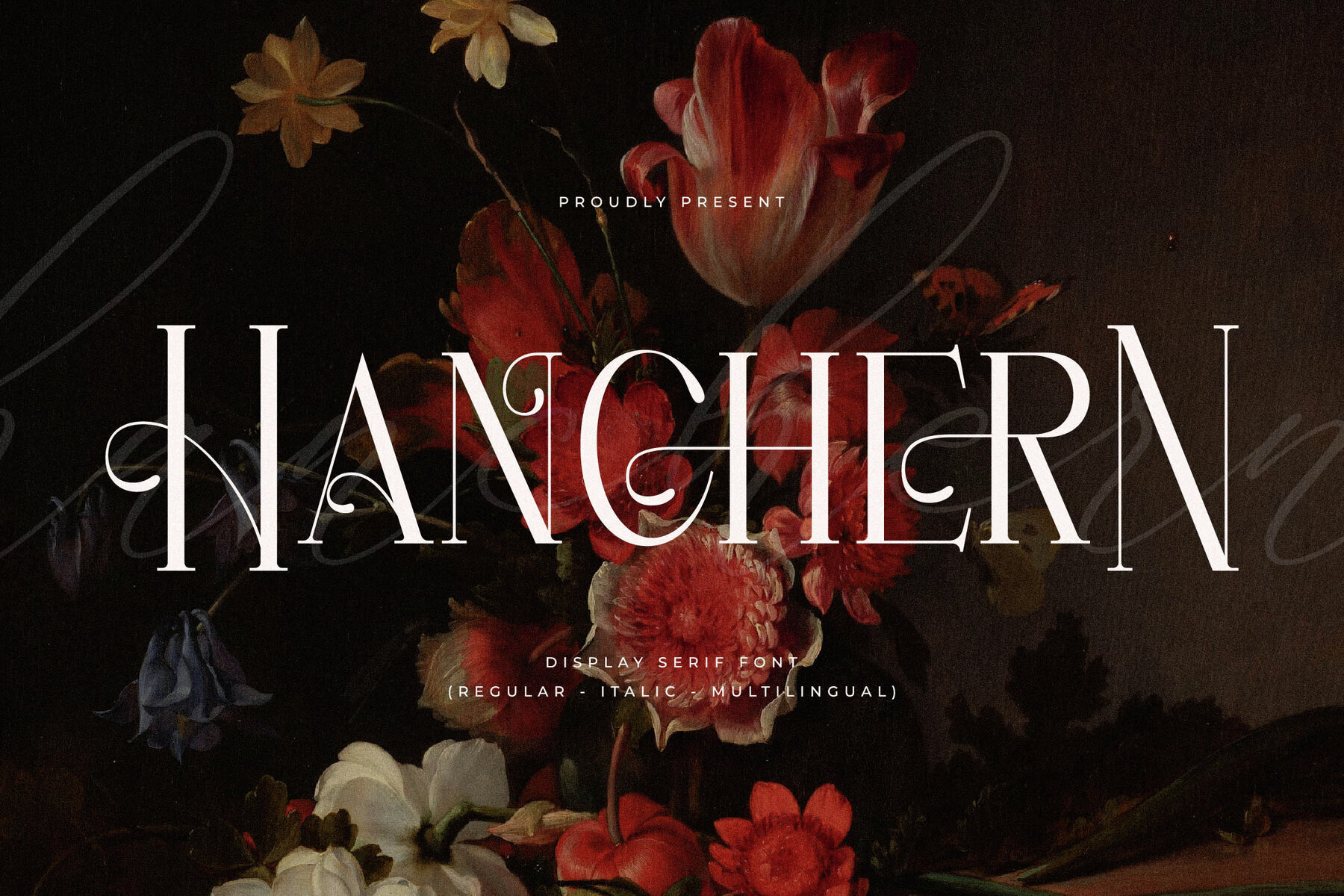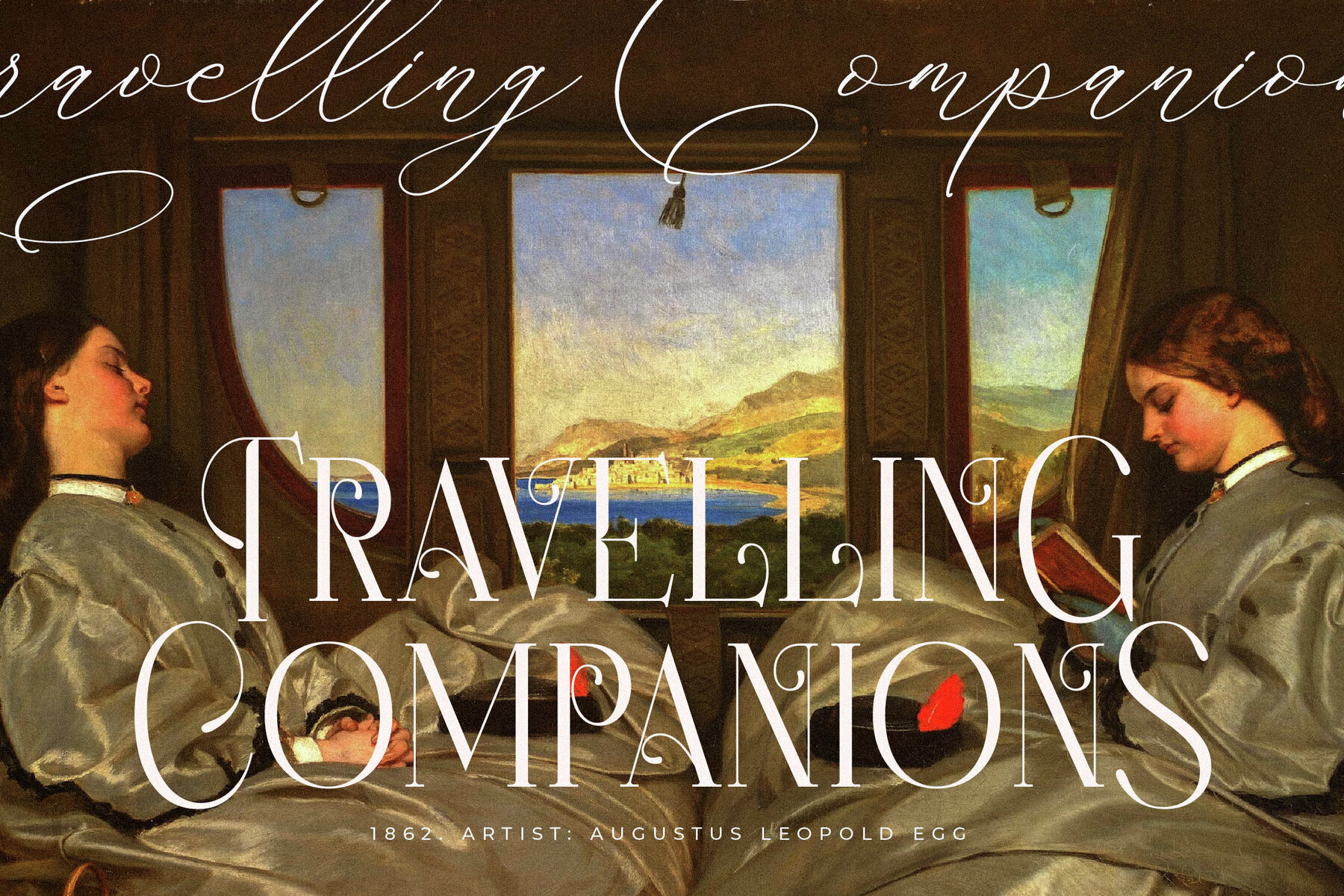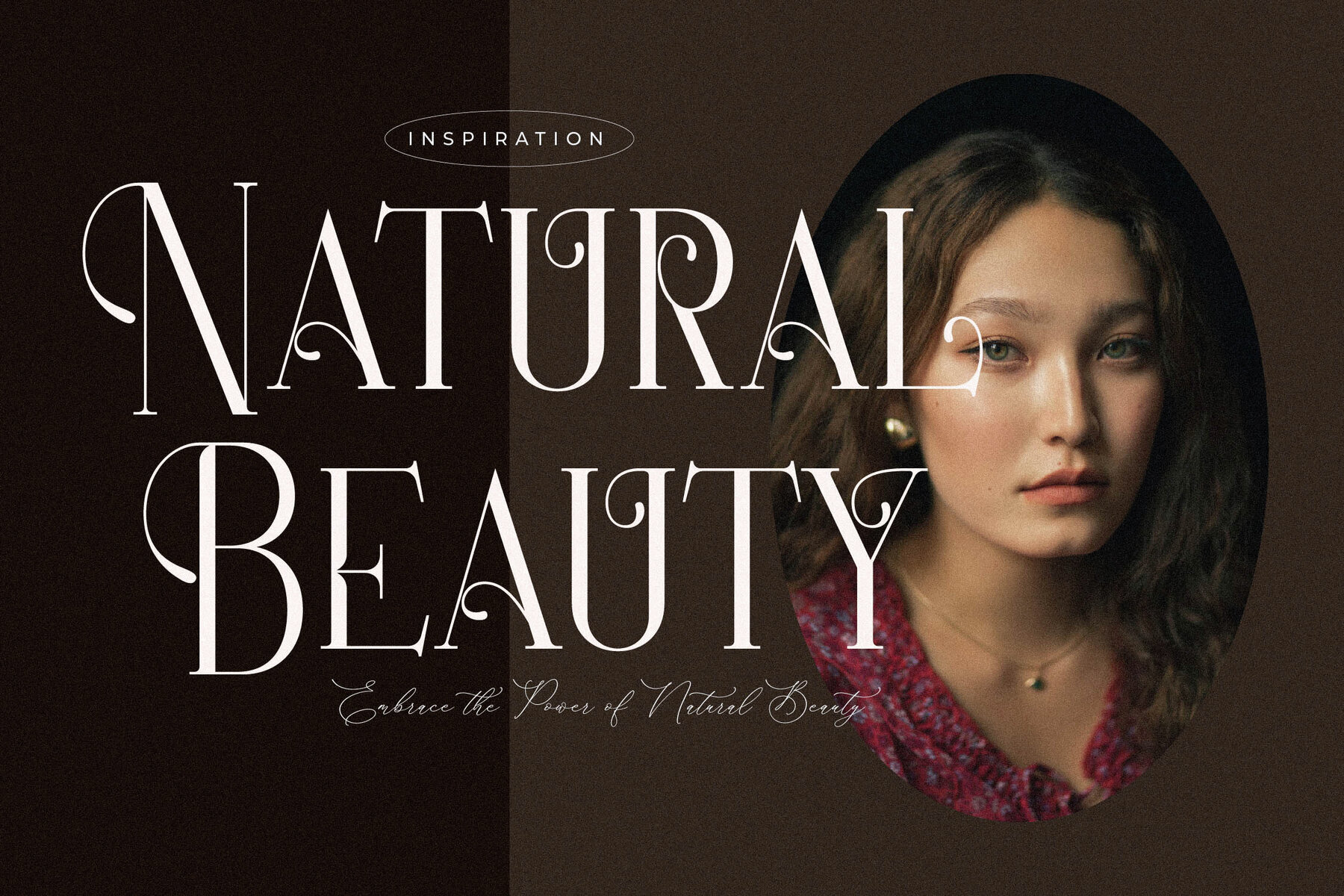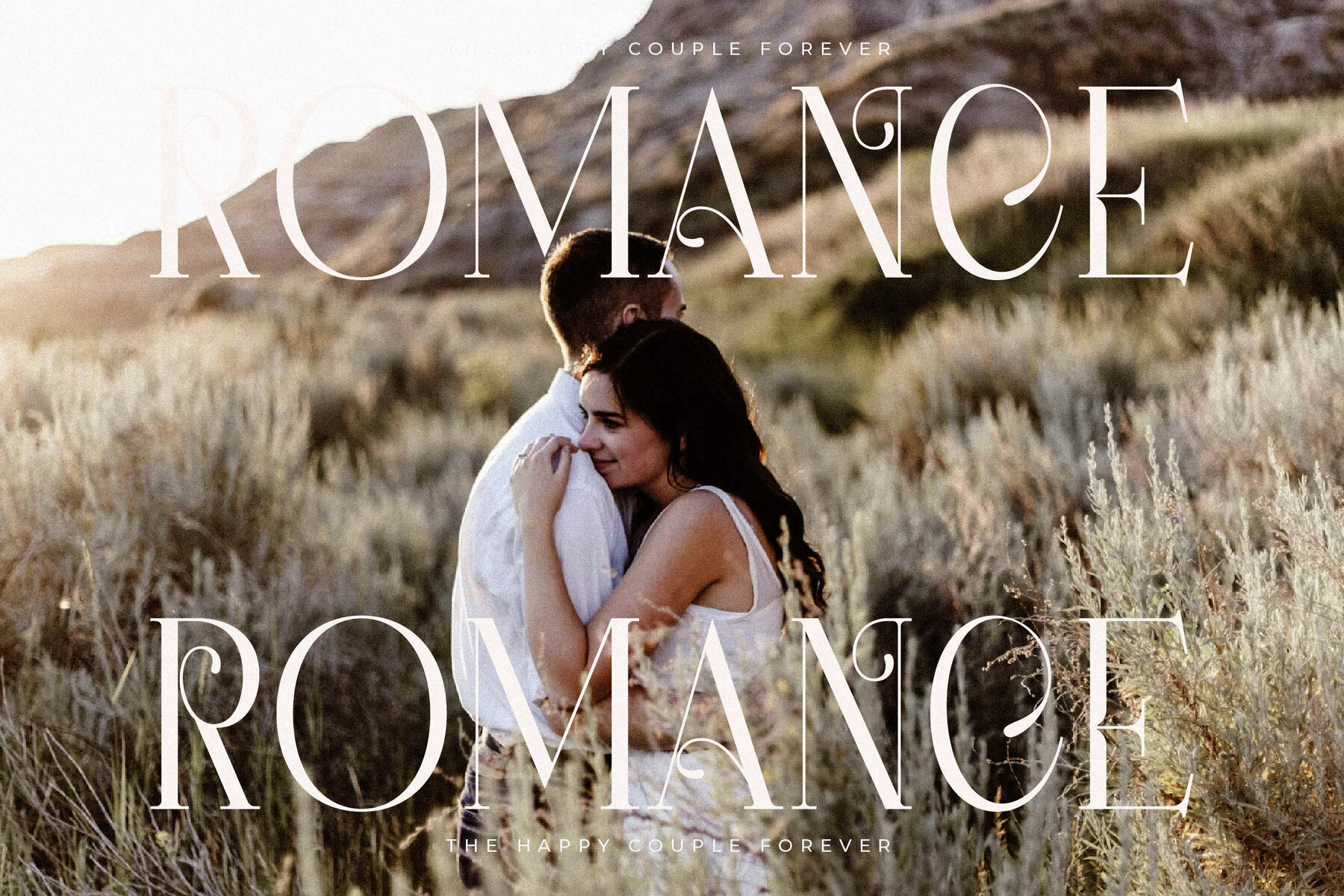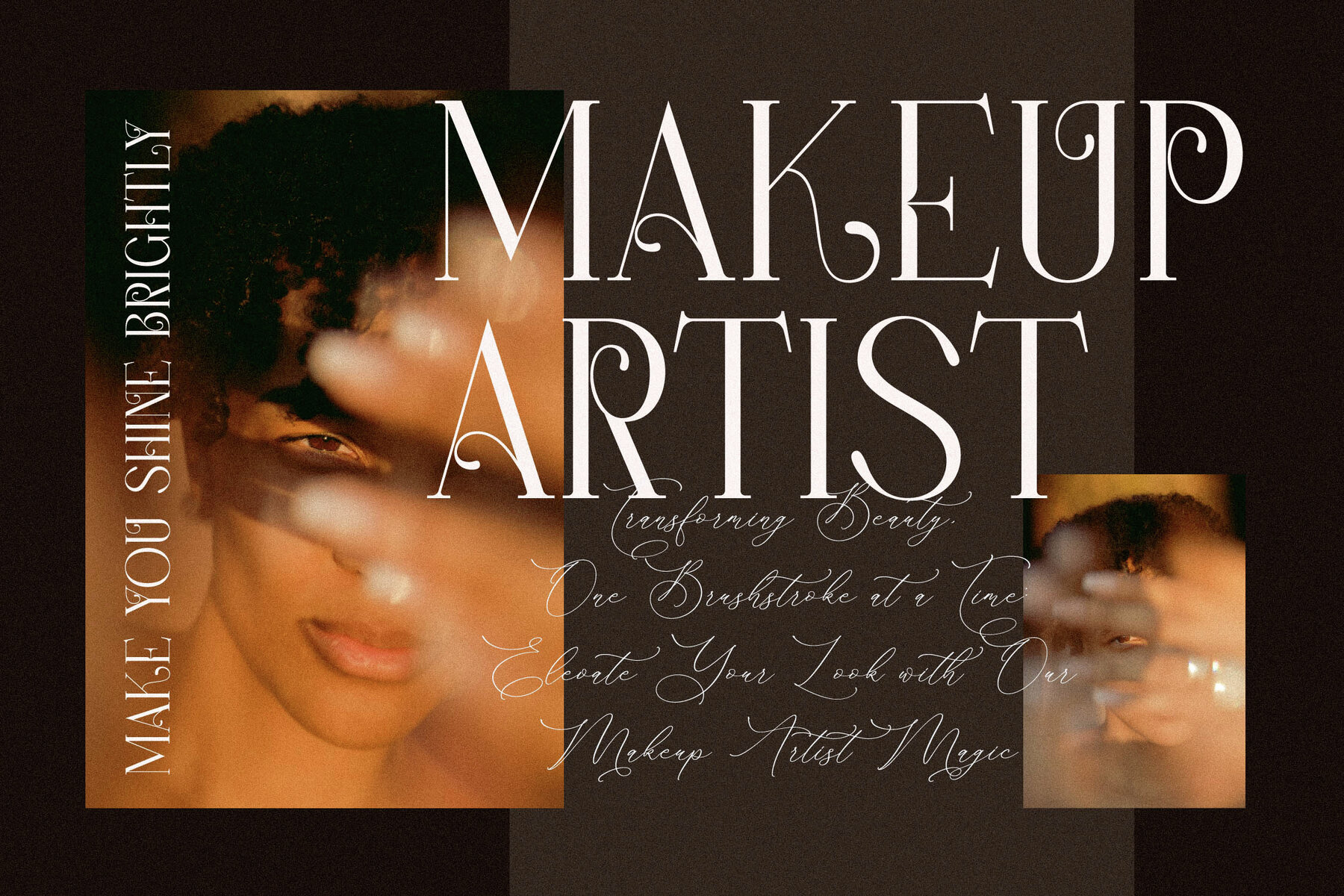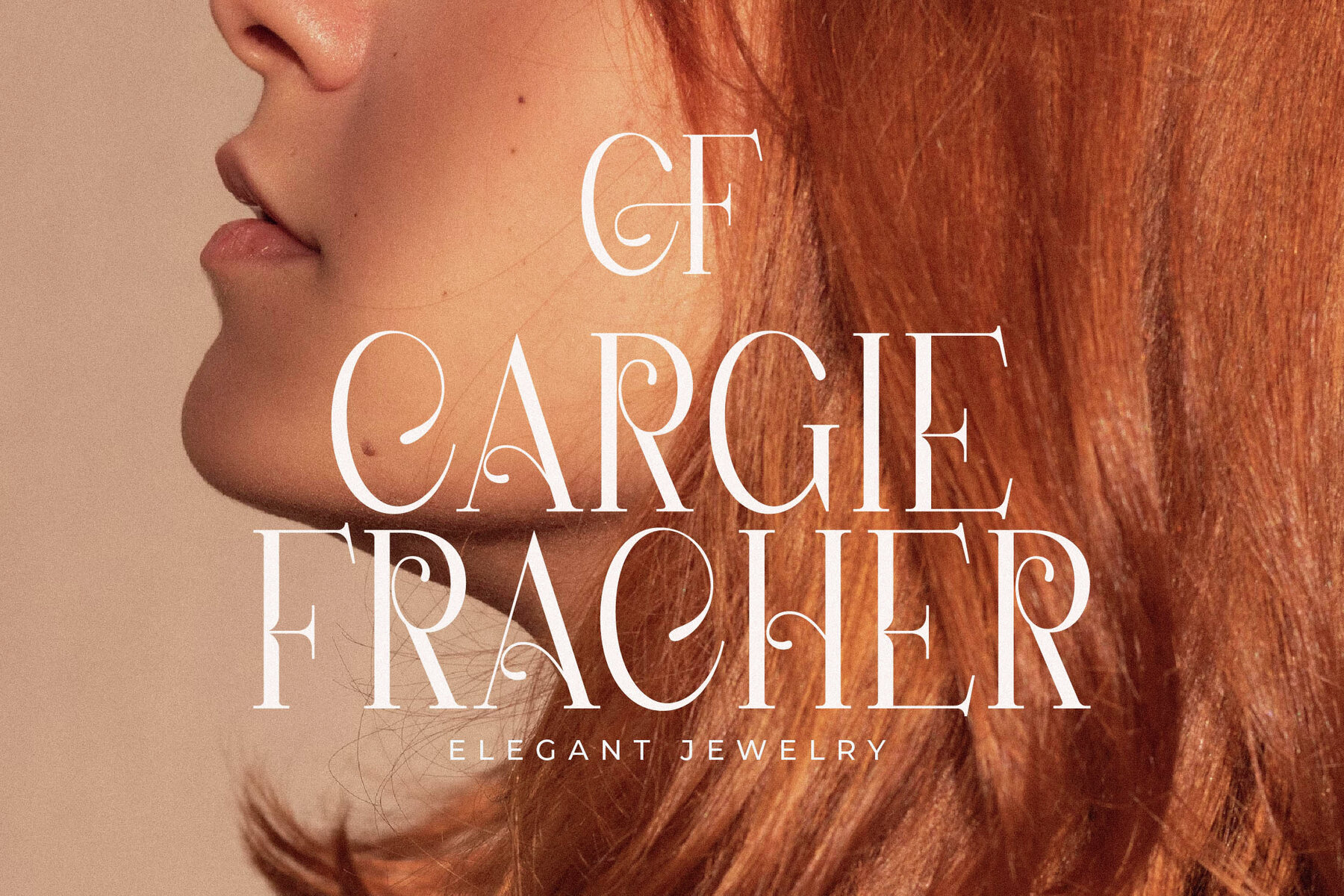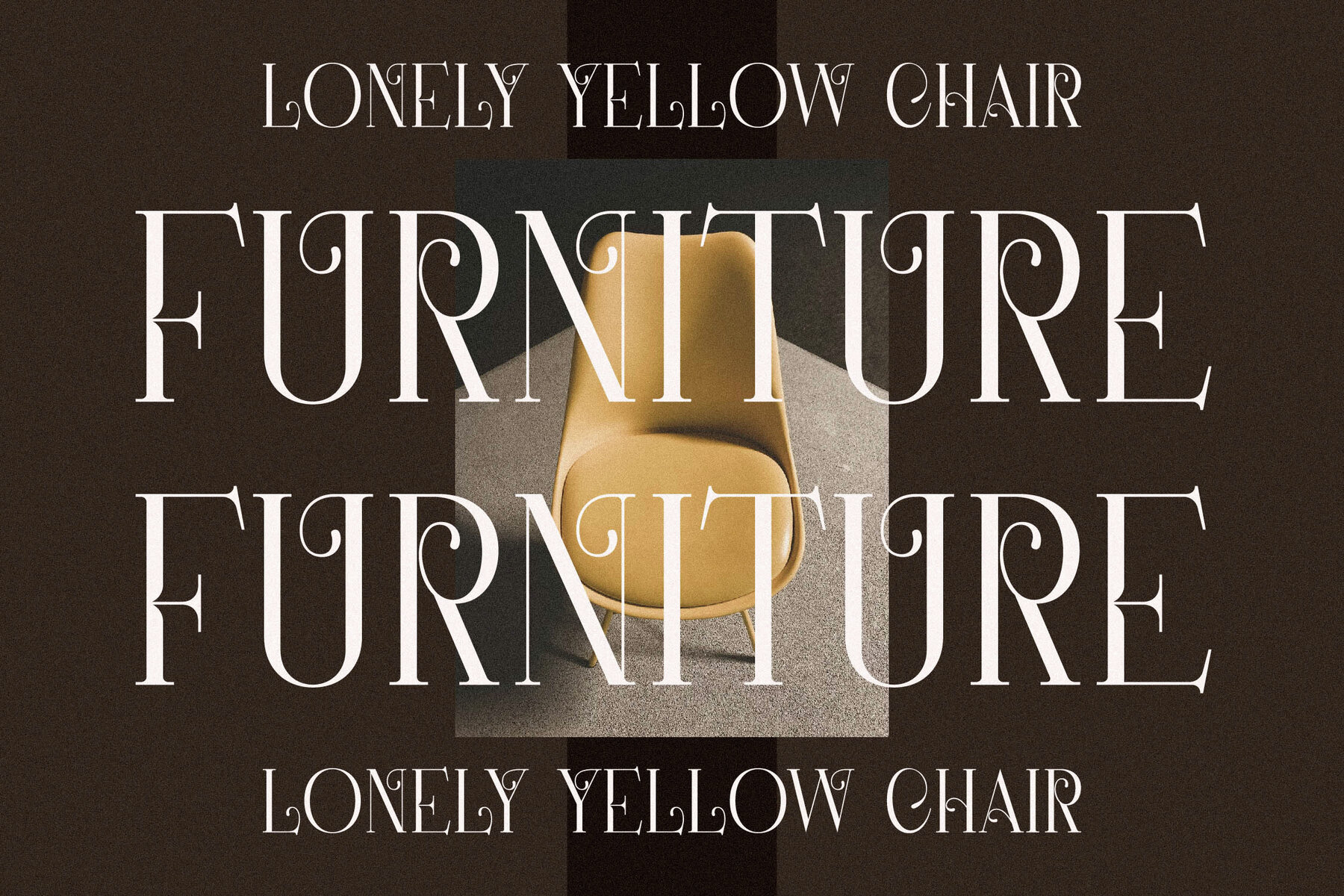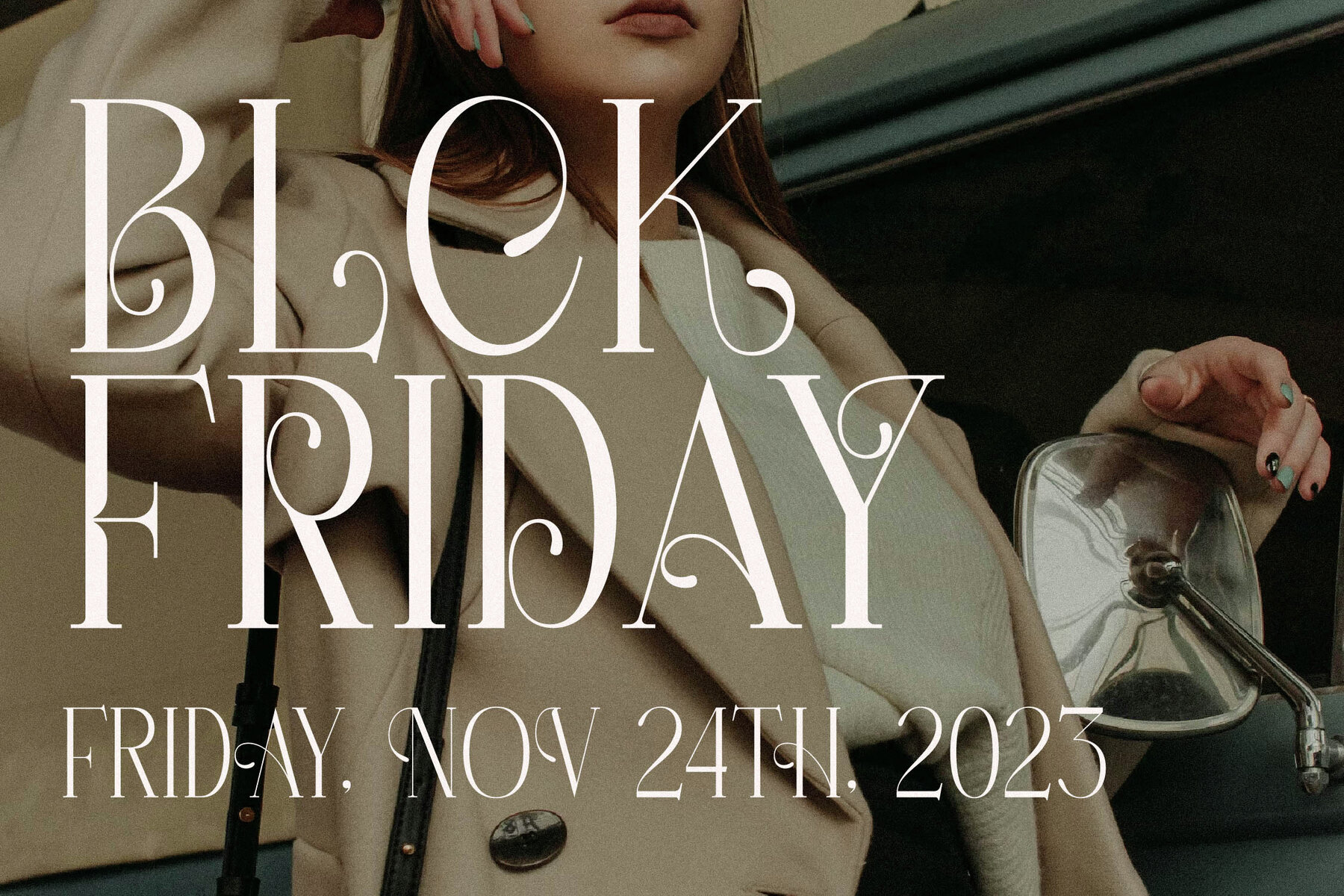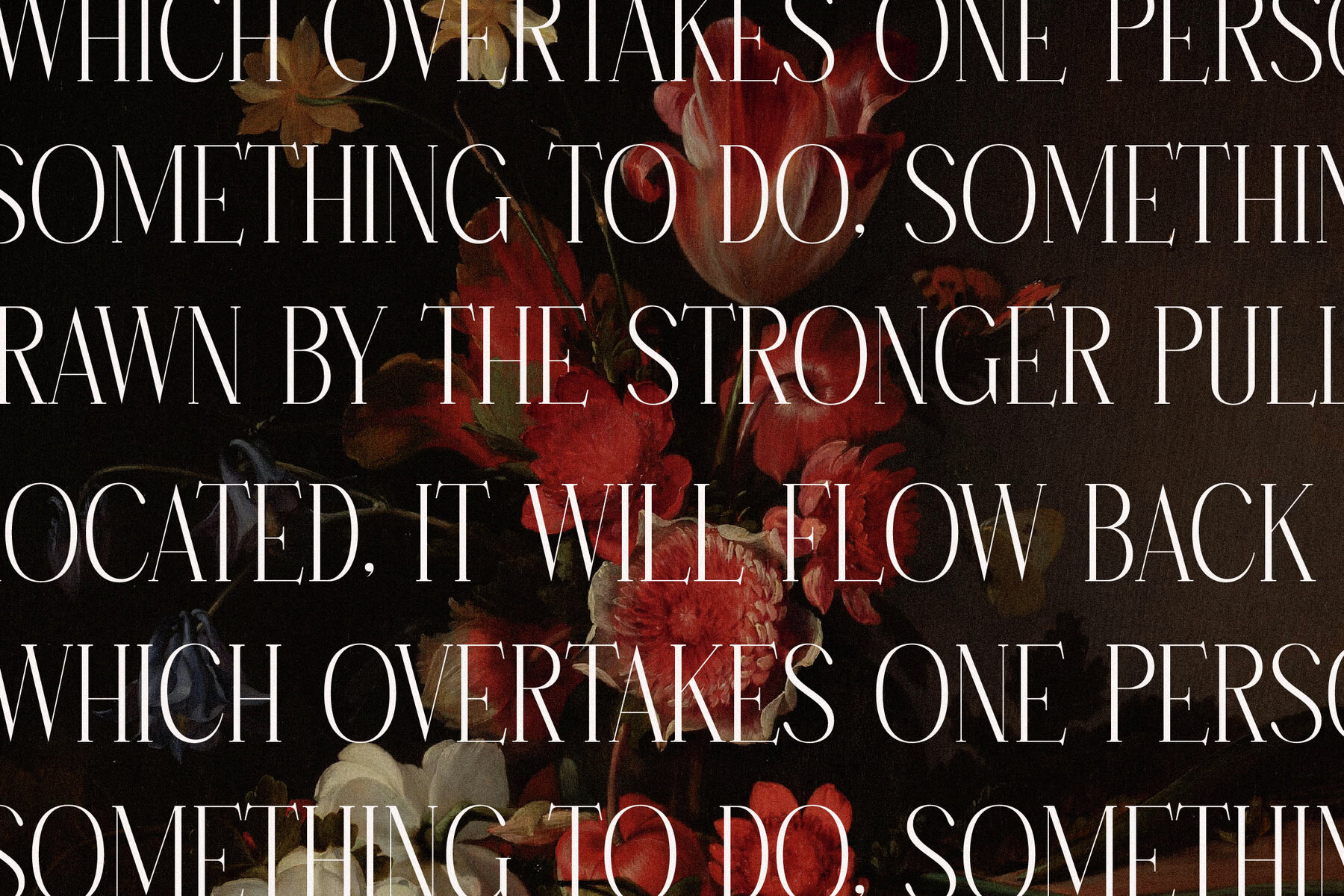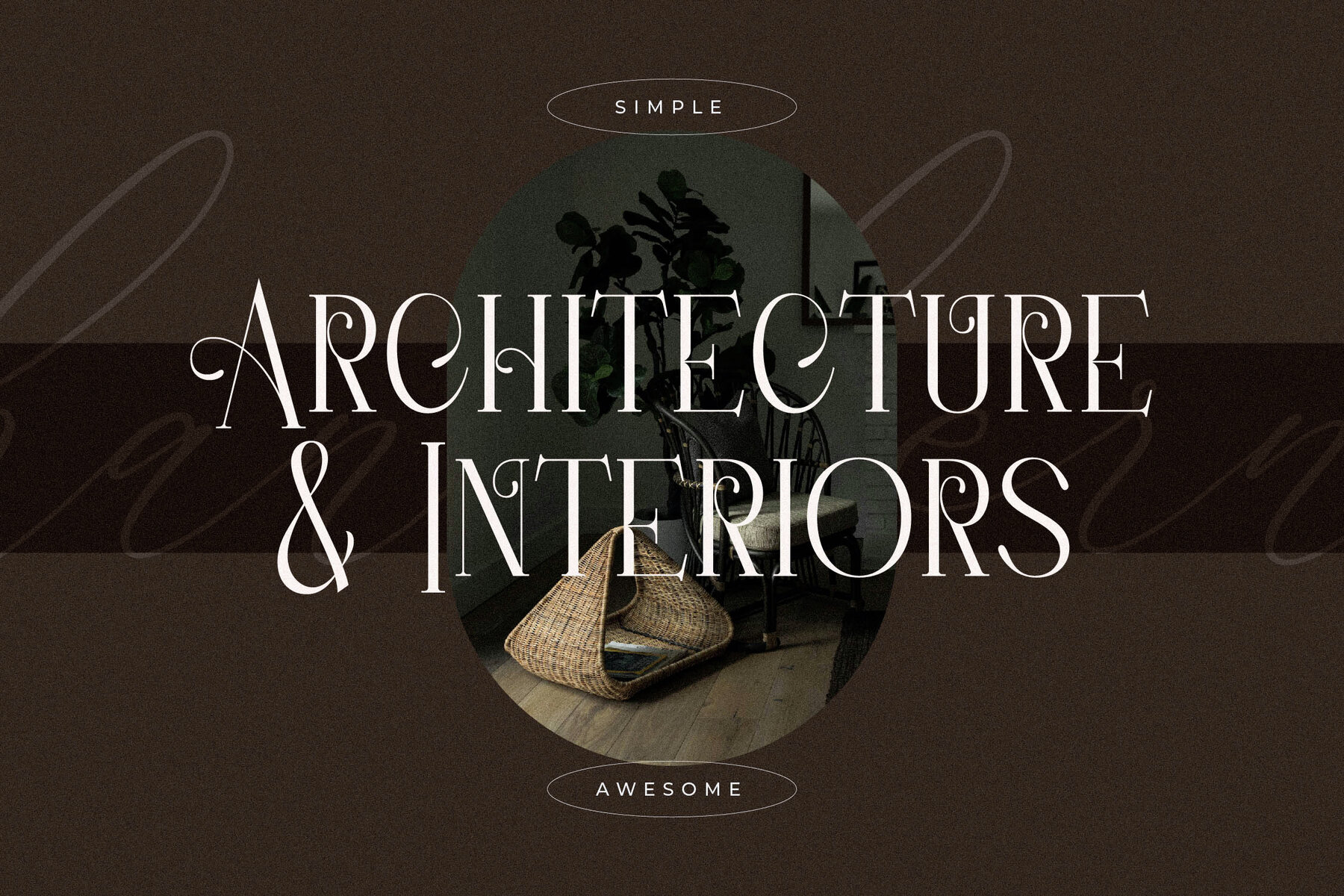
Hanchern Font
Hanchern Regular
Hanchern Italic
The Hanchern Typeface seamlessly blends modern sophistication with classic serif charm, offering a distinct style that elevates any design project. This font, crafted by Storytype, exudes luxury and elegance, making it an ideal choice for logos, book and movie titles, fashion brands, and more. Features: Whether you're crafting a magazine cover or designing a high-end clothing line, the Hanchern Typeface provides the versatility and refinement needed to leave a lasting impression.Hanchern Typeface: Timeless Elegance in Modern Serif